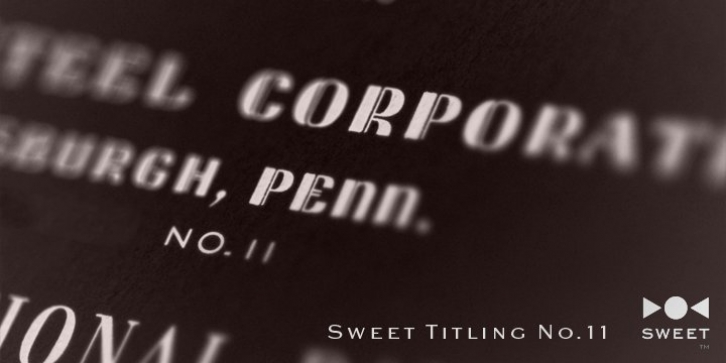
Sweet Titling No. 11 is a 2009 addition to the Sweet Collection of engraved lettering styles from the 20th Century.
This obscure, art deco design would have been used for engraved letterhead, business cards, etc., and likely first appeared in the 1920s or '30s.